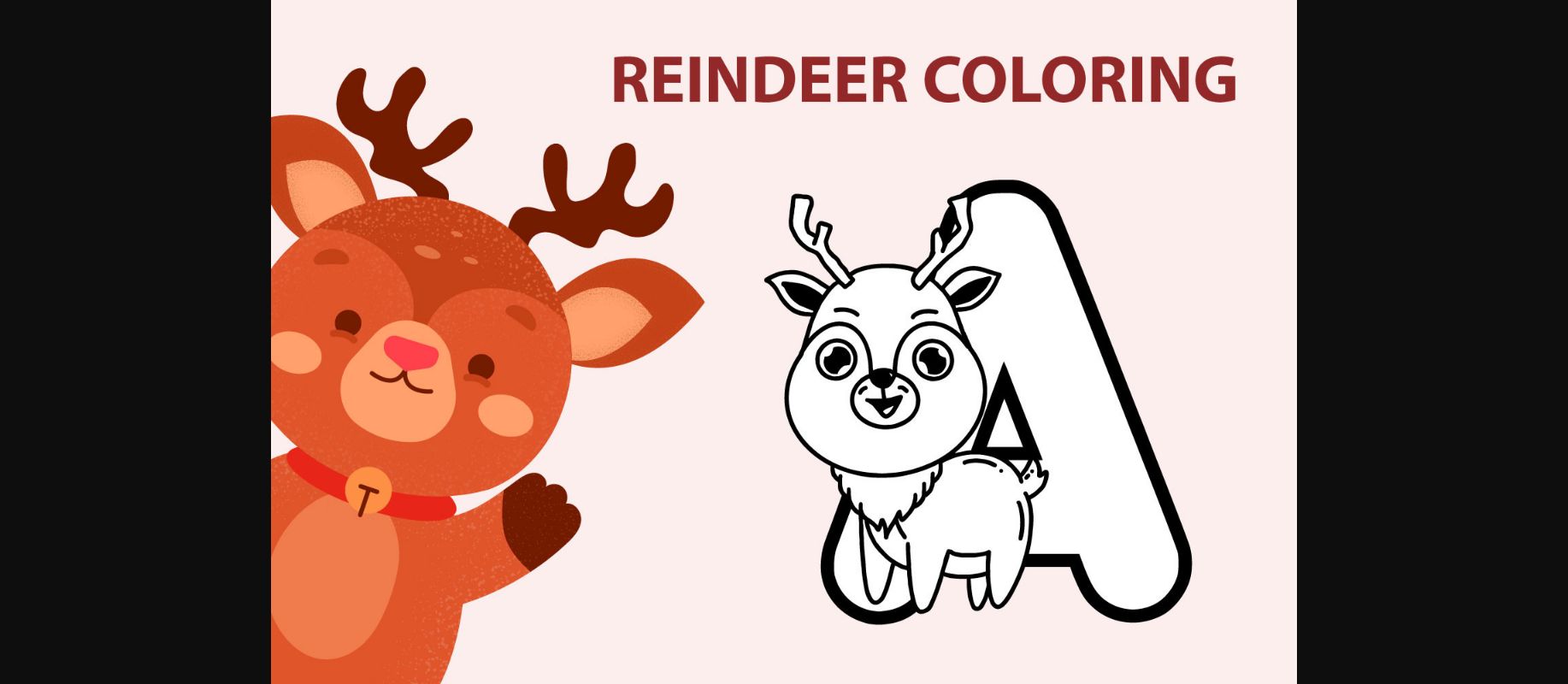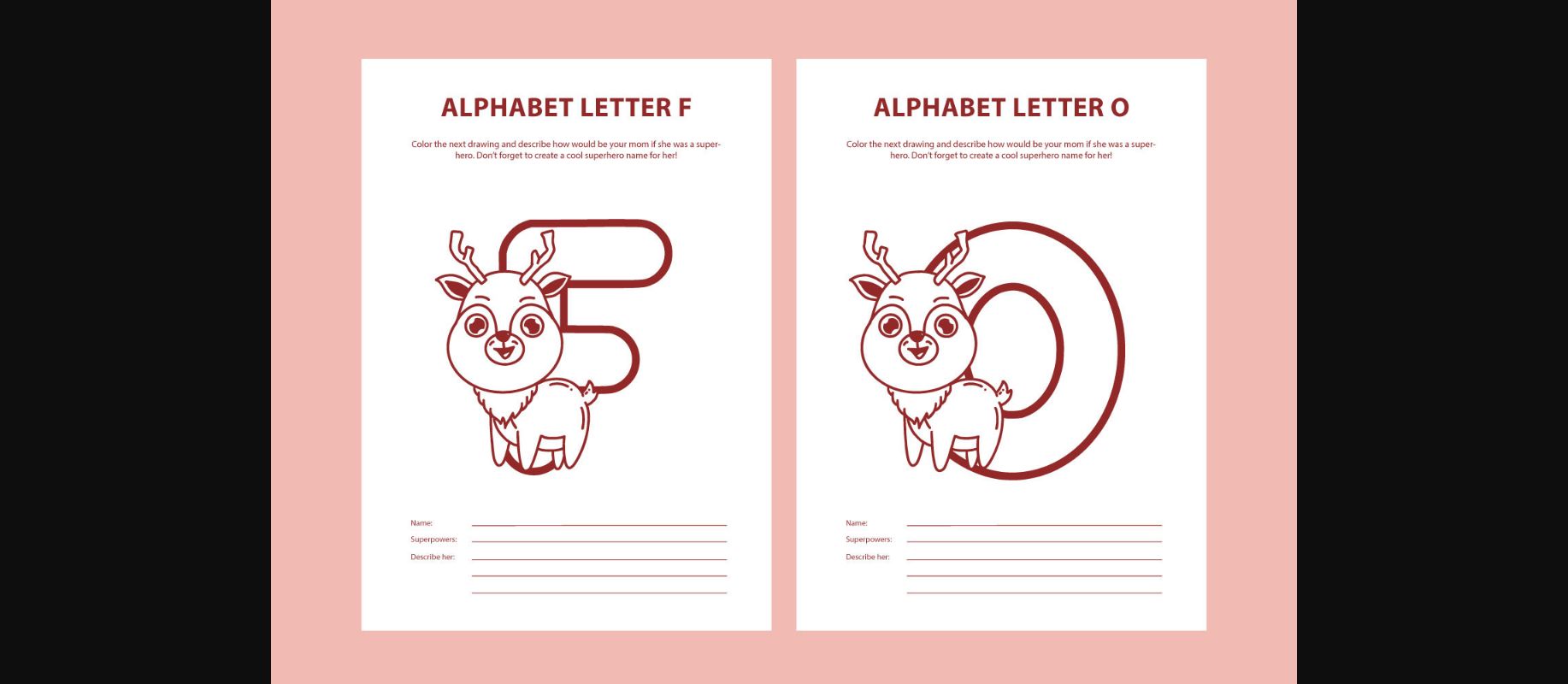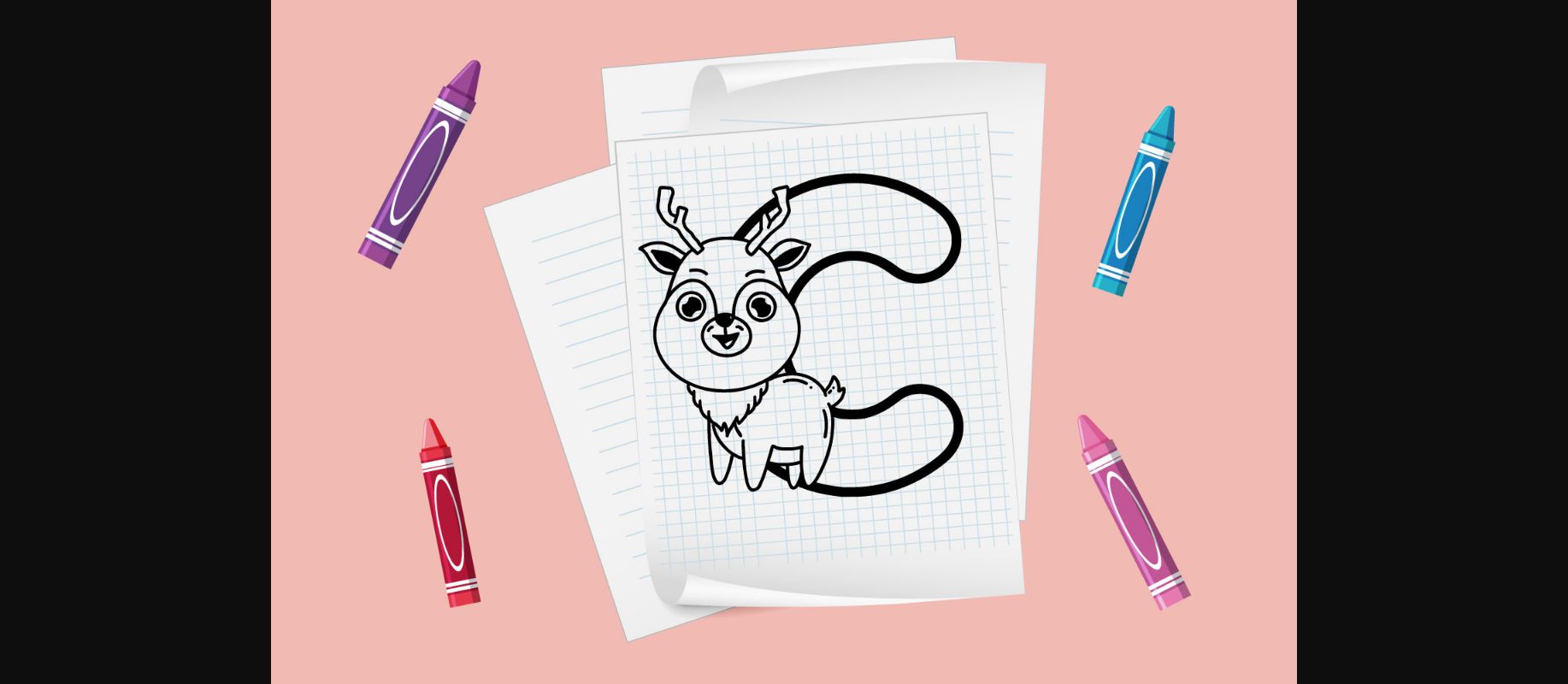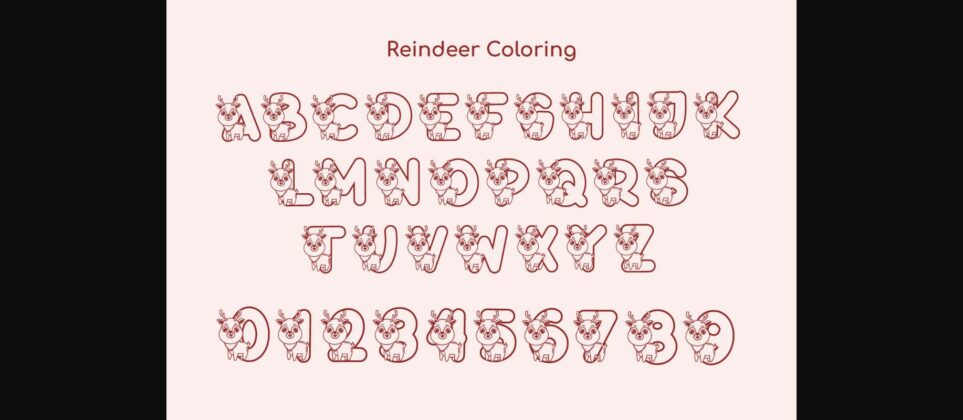
Reindeer Coloring Font
About Reindeer Coloring Font
Reindeer Coloring is a cute and fun decorative font. Add this adorable font to your designs, and watch how it makes them come alive!